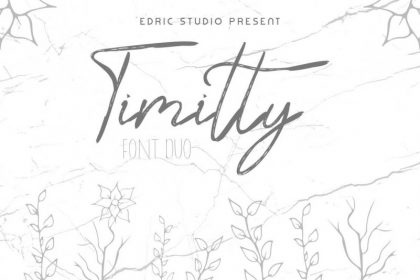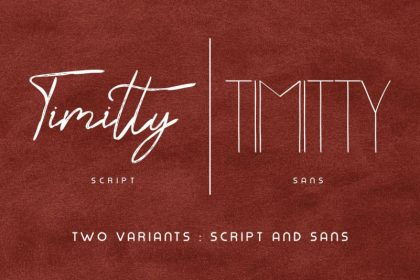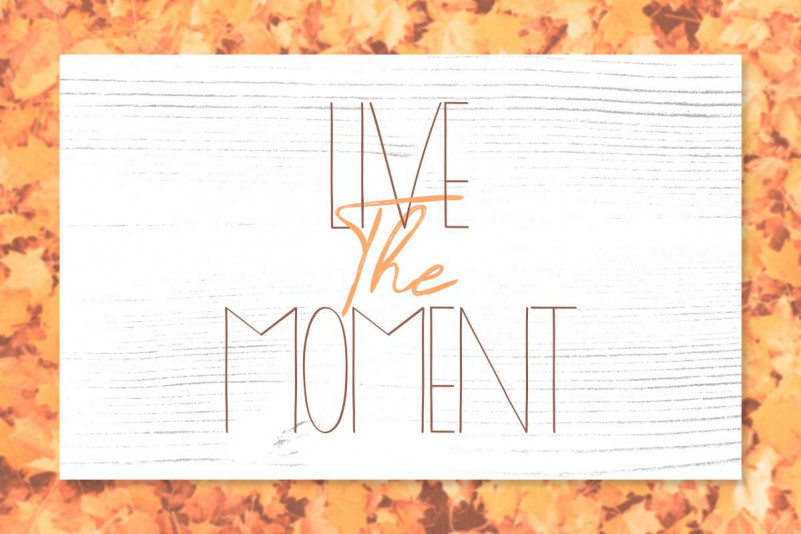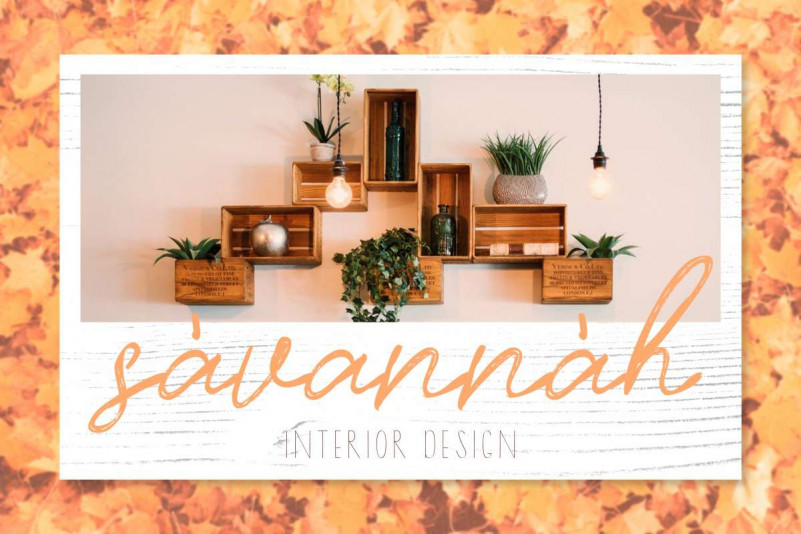
Timitty Font Duo
Hola Netizens, Please welcome Timitty Font Duo. New font family from EdricStudio. Timitty Font Duo is a two in one font family. It has two different styles: display sans and Calligraphy script. It was made in Bandung on 2019. It works on PC & Mac with Simple installations. Accessible in the Adobe Illustrator, Adobe Photoshop, Adobe InDesign, even work on Microsoft Word. It’s also PUA Encoded Characters – Fully accessible without additional design software.